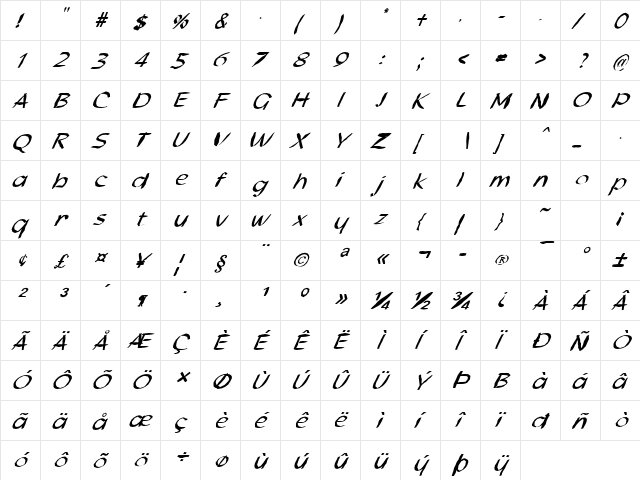
FZ HAND 21 MANGLED ITALIC Normal Font Preview
FZ HAND 21 MANGLED ITALIC Normal
FZ HAND 21 MANGLED ITALIC Normal Font Details
Design Context for FZ HAND 21 MANGLED ITALIC Typeface
FZ HAND 21 MANGLED ITALIC brings a calligraphic fluidity to the page — its connecting strokes and expressive curves give it an unmistakably human quality.
Font Pairing: Combine FZ HAND 21 MANGLED ITALIC with a simple geometric sans for maximum contrast — the tension between flowing curves and clean structure is a classic typographic pairing.
Pro Tip: Pair FZ HAND 21 MANGLED ITALIC with a clean sans-serif for supporting text. The contrast between fluid script and geometric structure creates an elegant typographic hierarchy.